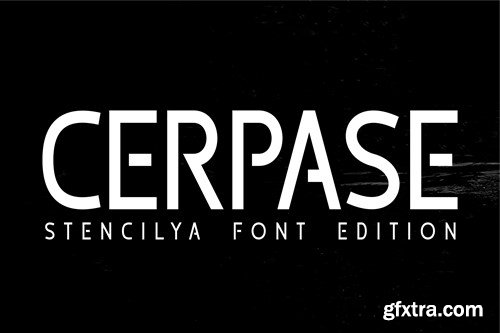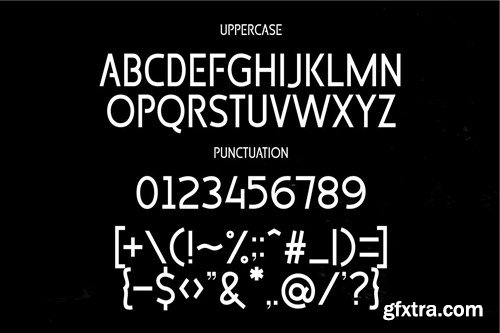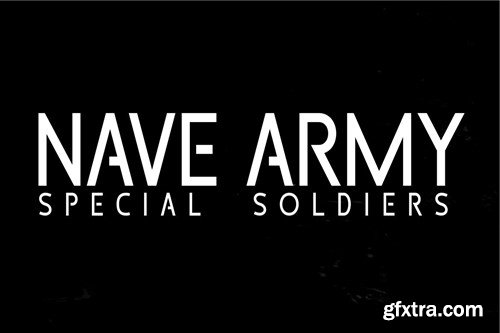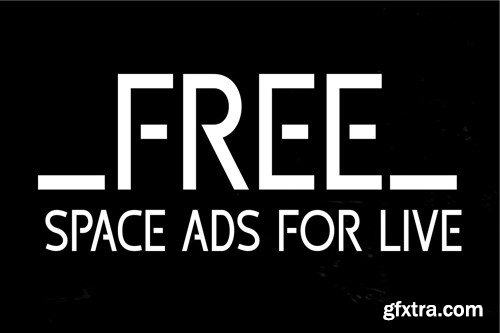
查普萨字体VPGKTNR
Cerpase Font VPGKTNR
Cerpase Font
Immerse yourself in the realm of 'Stencil' - a distinct and versatile font with a commanding presence. As the name suggests, it hails from the stencil font family, infusing a sense of rugged durability and strength into your text. Whether you're crafting captivating tales about the military world and its rich history, structuring classified announcements, or simply penning thoughts that demand attention. The sans-serif elegance of 'Stencil' ensures readability and aesthetics are never compromised, granting your words an enthralling power that resonates with readers.